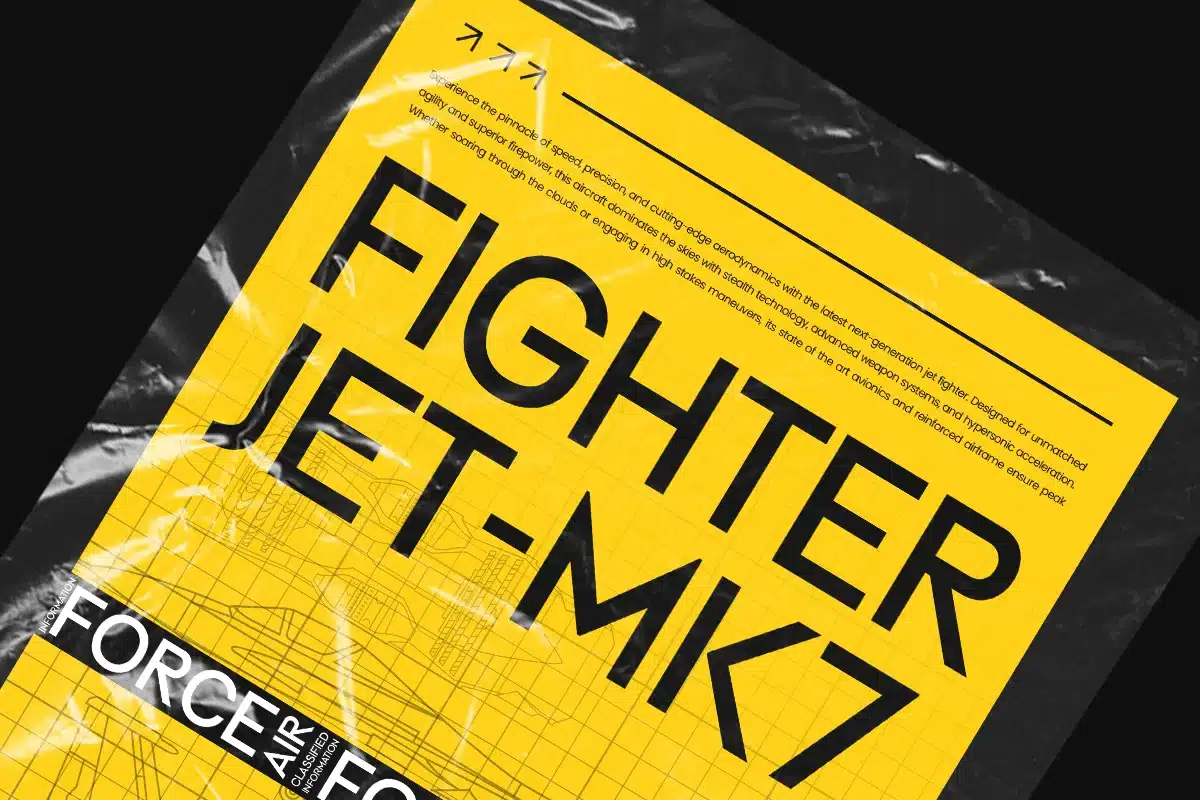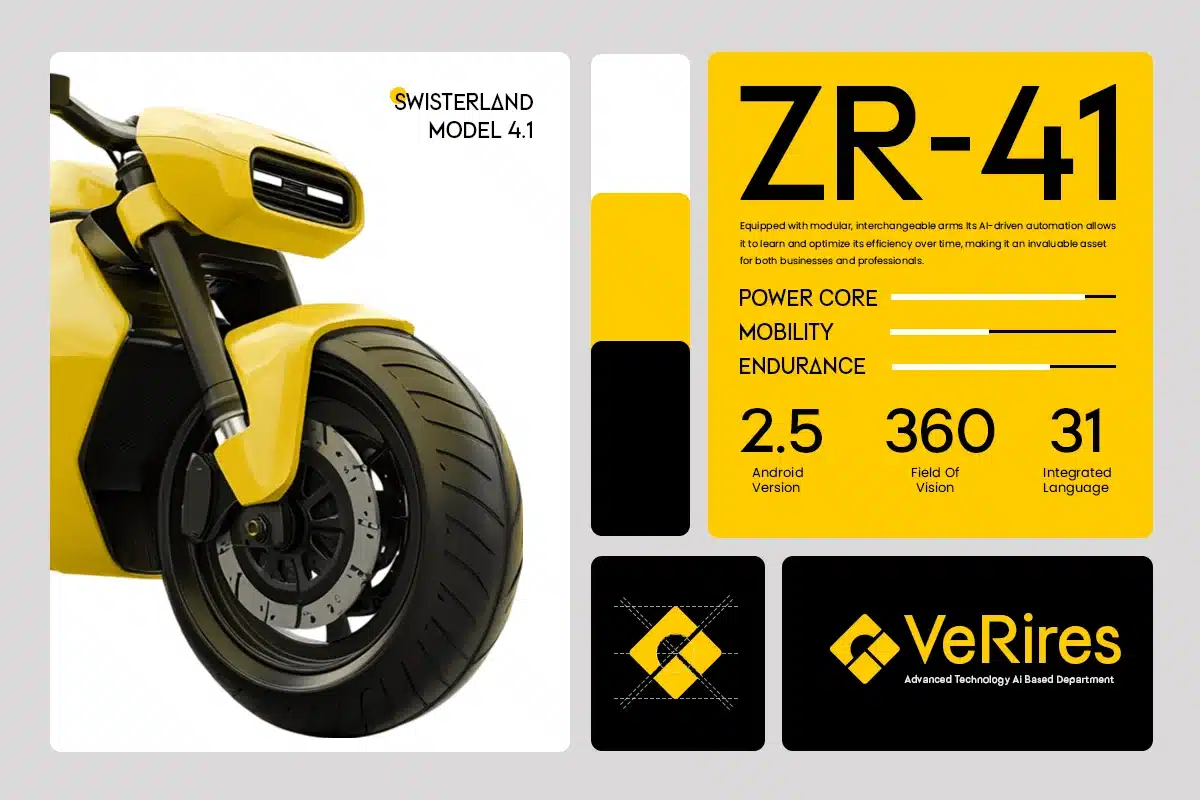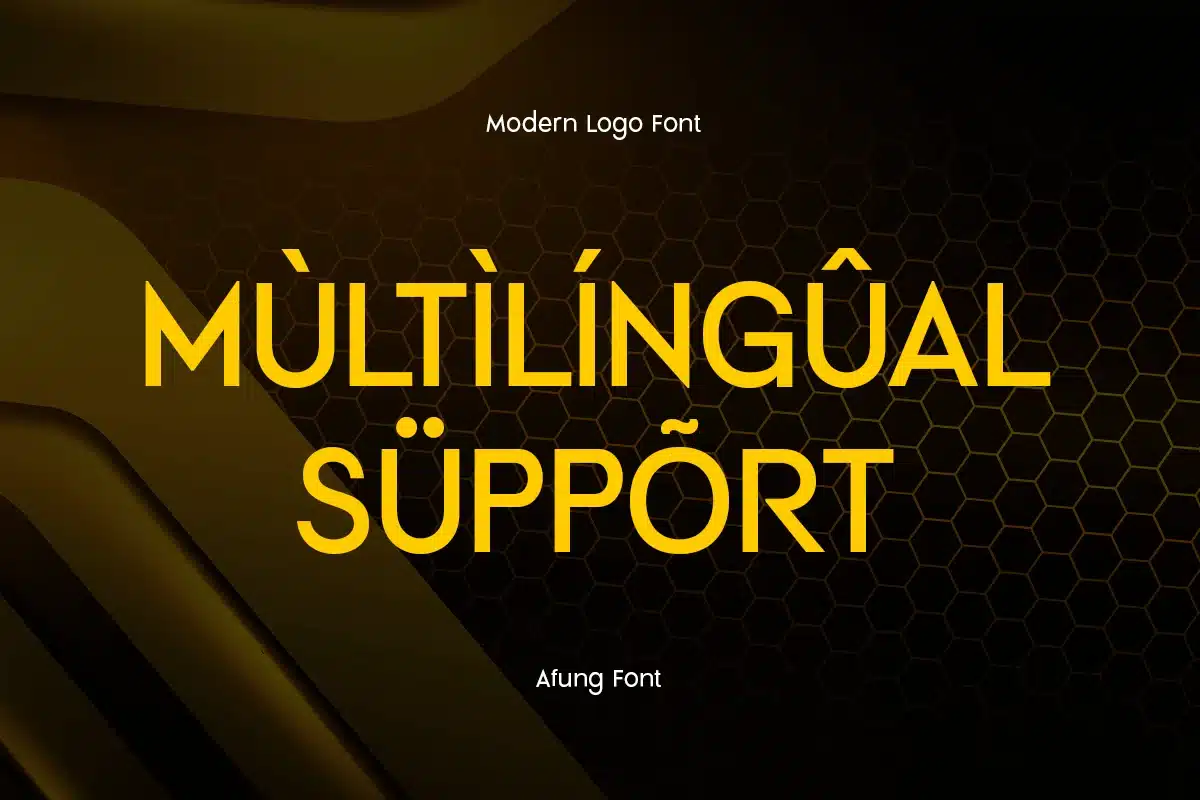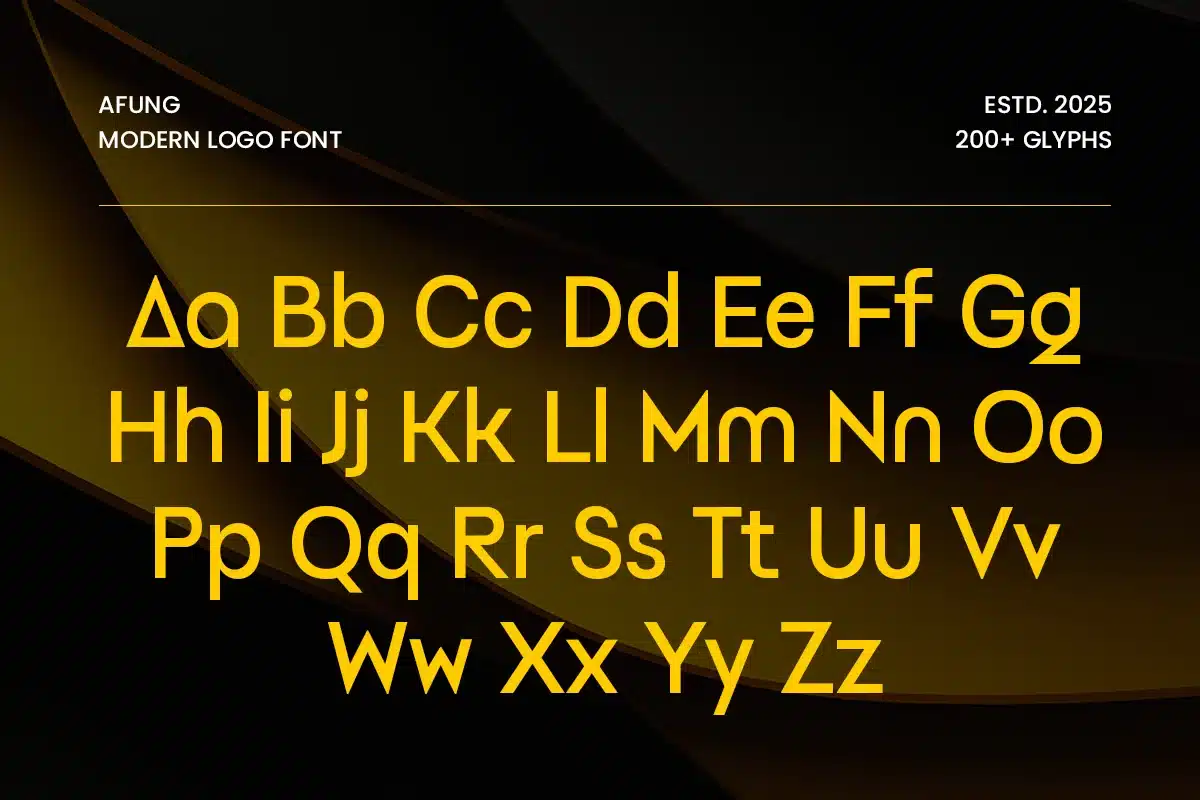
Afung – Modern Logo Font
Afung is a contemporary sans-serif font with strong geometric shapes and clean lines, perfect for logos, branding, UI design, and minimalist packaging. Its simplicity gives it great versatility while maintaining a distinct and modern personality—ideal for tech startups, lifestyle brands, digital agencies, and fashion labels.
With a balanced structure and subtle uniqueness in each character, Afung helps your brand stand out in a professional, stylish way. Whether for print or screen, this font delivers clarity and character for impactful visual communication.
Let Afung be your go-to choice for modern, bold, and sophisticated logo typography.
Afung Modern Logo Font Features:
- Bold, Clean Sans-Serif Style
- Perfect for Logos, Branding, UI, and Packaging
- Punctuation, Numbers, and Symbols
- Uppercase and Lowercase
- Opentype Features
Multilingual Characters available for:
Afrikaans, Albanian, Asu, Basque, Bemba, Bena, Breton, Chiga, Cornish, Dutch, English, Estonian, Filipino, Finnish, Friulian, Galician, German, Gusii, Indonesian, Irish, Italian, Kabuverdianu, Kalenjin, Kinyarwanda, Luo, Luxembourgish, Luyia, Machame, Makhuwa-Meetto, Makonde, Malagasy, Manx, Morisyen, North Ndebele, Nyankole, Oromo, Portuguese, Quechua, Romansh, Rombo, Rundi, Rwa, Samburu, Sango, Sangu, Scottish Gaelic, Sena, Shambala, Shona, Soga, Somali, Spanish, Swahili, Swedish, Swiss.